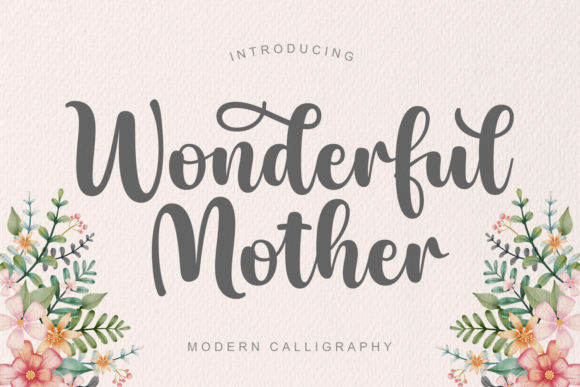
Introducing Wonderful Mother Font, the enchanting script font that will ignite your imagination and transform your designs into masterpieces!
Immerse yourself in its alluring rhythm and captivating characters, crafted by the skilled hand of Andrian Dehasta. This font is not merely a tool; it's a gateway to a world of limitless creativity.
Whether you're crafting heartfelt greeting cards or giving life to captivating t-shirt designs, Wonderful Mother Font holds the power to elevate your projects to extraordinary heights. Its PUA encoding grants you effortless access to a treasure trove of glyphs and swashes, empowering you to unleash your artistic vision without bounds.
Each stroke of this typeface is infused with a touch of magic, beckoning you into a realm where your ideas flourish. It's the perfect choice for adding a touch of elegance and whimsy to any project.
Indulge in the artistry of Wonderful Mother Font today, and let your creativity soar to new galaxies!